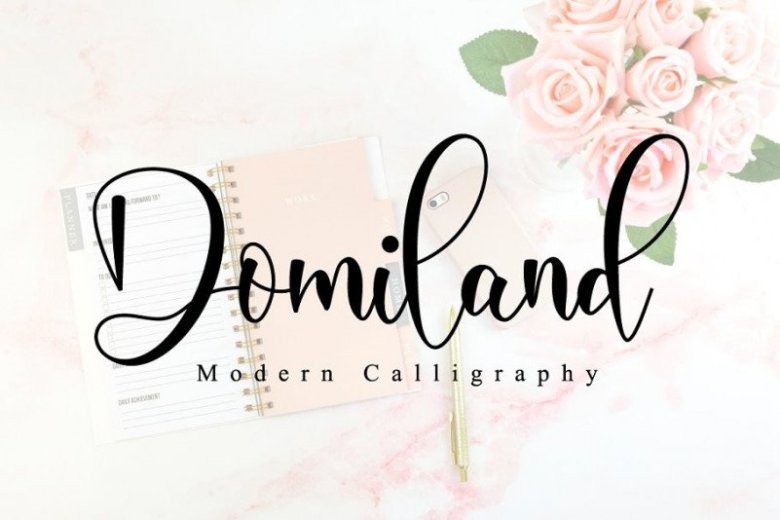
Domiland Script Font
Hello Font Lovers! This is a beautiful calligraphy font with a unique alternate. This beautiful script can make your text appear elegant, luxurious, and modern. Introducing Domiland Font. It is design and shared by Nissa Studio.
It’s a beautiful script font that has a classy, elegant, and modern look. Fall in love with its flowing curves! It’s perfect for branding projects, logo, wedding designs, social media posts, advertisements, product packaging, tshirt design, product designs, label, photography, watermark, invitation, stationery and any projects.